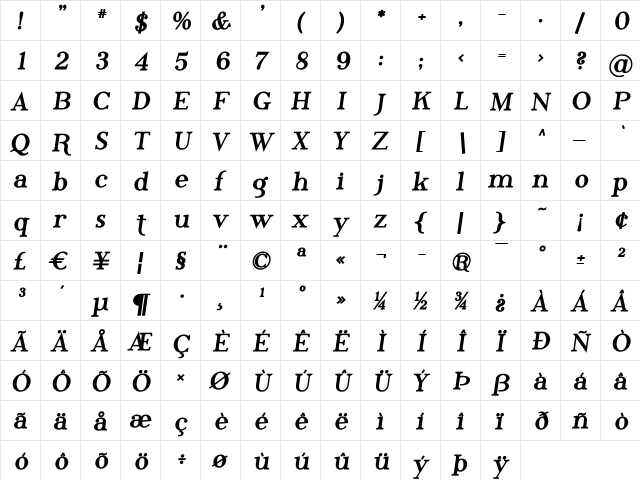
Phosphorus Tribromide Regular
| Designer | Derek Vogelpohl |
Design Context for Phosphorus Tribromide Typeface
Phosphorus Tribromide is a composed and adaptable typeface that performs quietly and consistently across a wide range of design contexts.